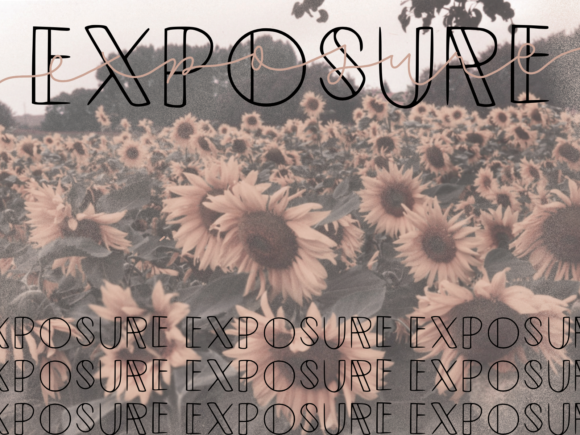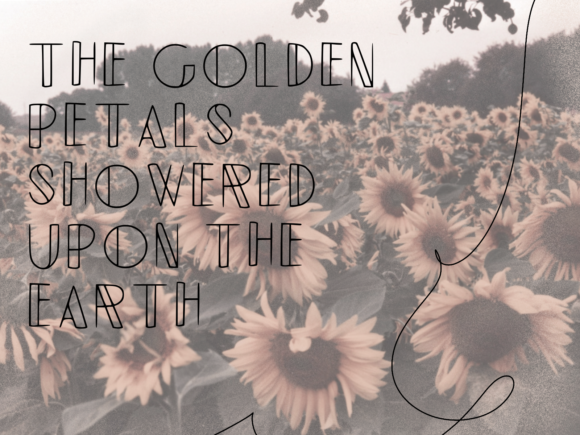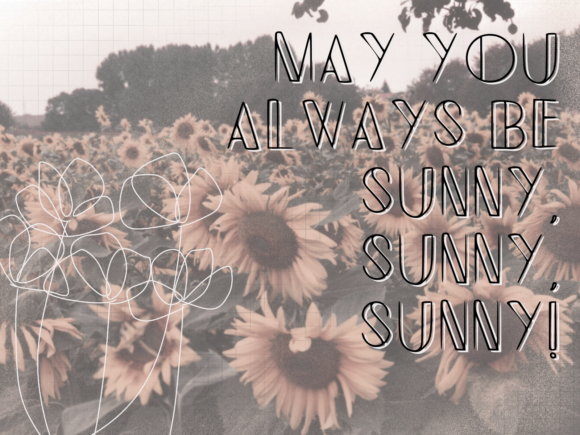
Exposure Font
About Exposure Font
Introducing Exposure: The Font for All Your Creative Needs!
Meet Exposure, the font that fulfills all your fontness needs! Whether you’re working on a web project, creating a presentation, or designing an invitation, Exposure is the perfect blend of artistic touch, elegance, and a modern look.
Exposure’s versatility makes it the ideal choice for any project you can think of. Its artistic flair adds a unique and captivating touch to your designs, while its element of elegance elevates the overall aesthetic.
As a font that combines artistic expression with a modern appeal, Exposure becomes the go-to choice for all your creative endeavors. Its clean lines and sophisticated curves ensure that your work exudes a contemporary and polished look.
Embrace the possibilities of Exposure as you embark on your creative journey. Let it be the font that enhances your projects, adding a sense of artistry and modernity in every endeavor.
As you explore the possibilities of Exposure, you’ll find it to be a font that caters to all your creative needs with ease. Its seamless blend of artistic touch and elegance transforms your work, ensuring that your designs stand out and leave a lasting impression.
So, let Exposure be the font that takes your projects to new heights. Embrace its artistic flair, elegance, and modern appeal, and watch as your web projects, presentations, invites, and more become truly exceptional. With Exposure as your font of choice, your designs will resonate with creativity and sophistication, captivating your audience and leaving a lasting impression. Embrace the versatility of Exposure and create designs that are truly captivating and unforgettable!